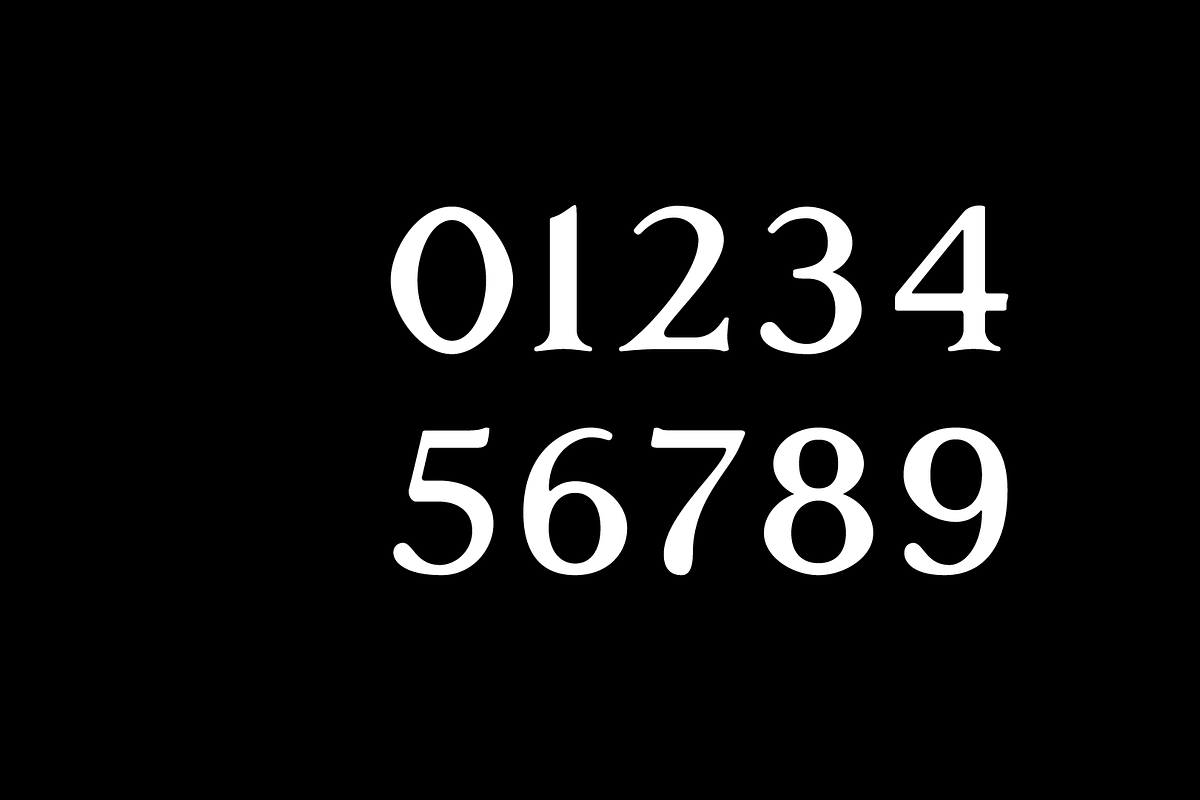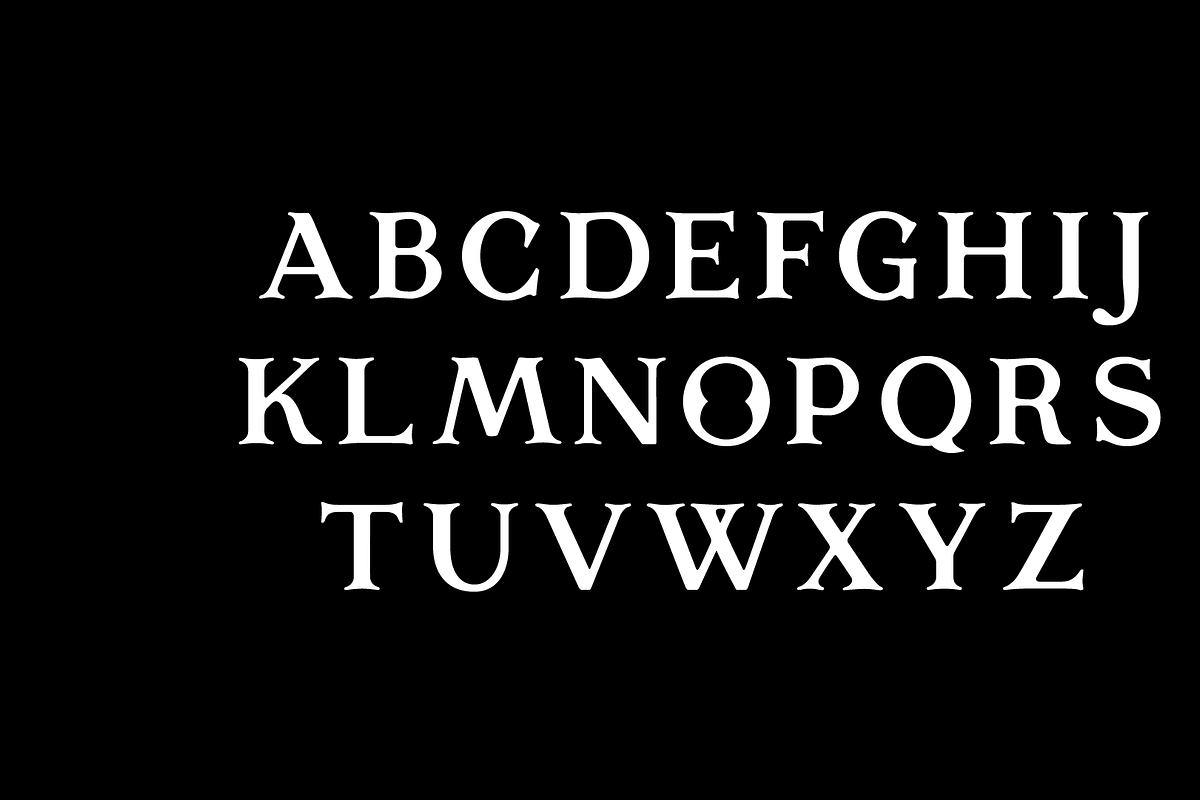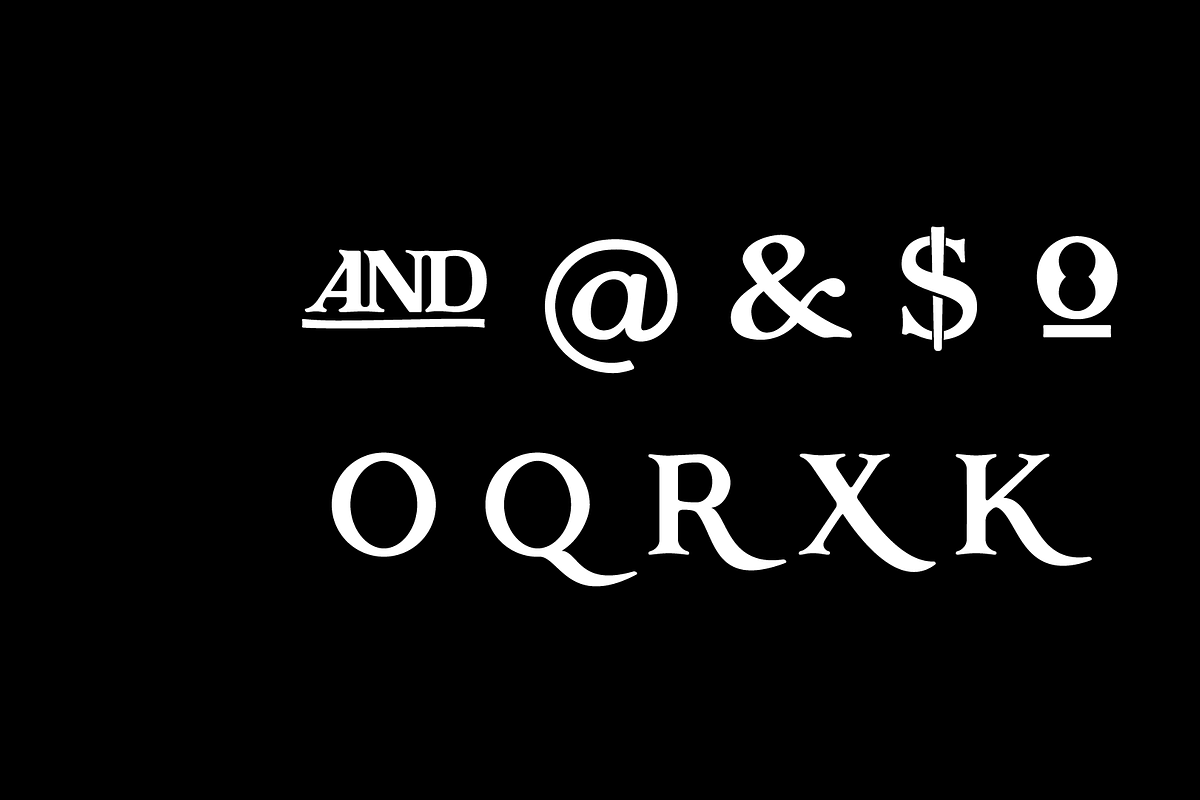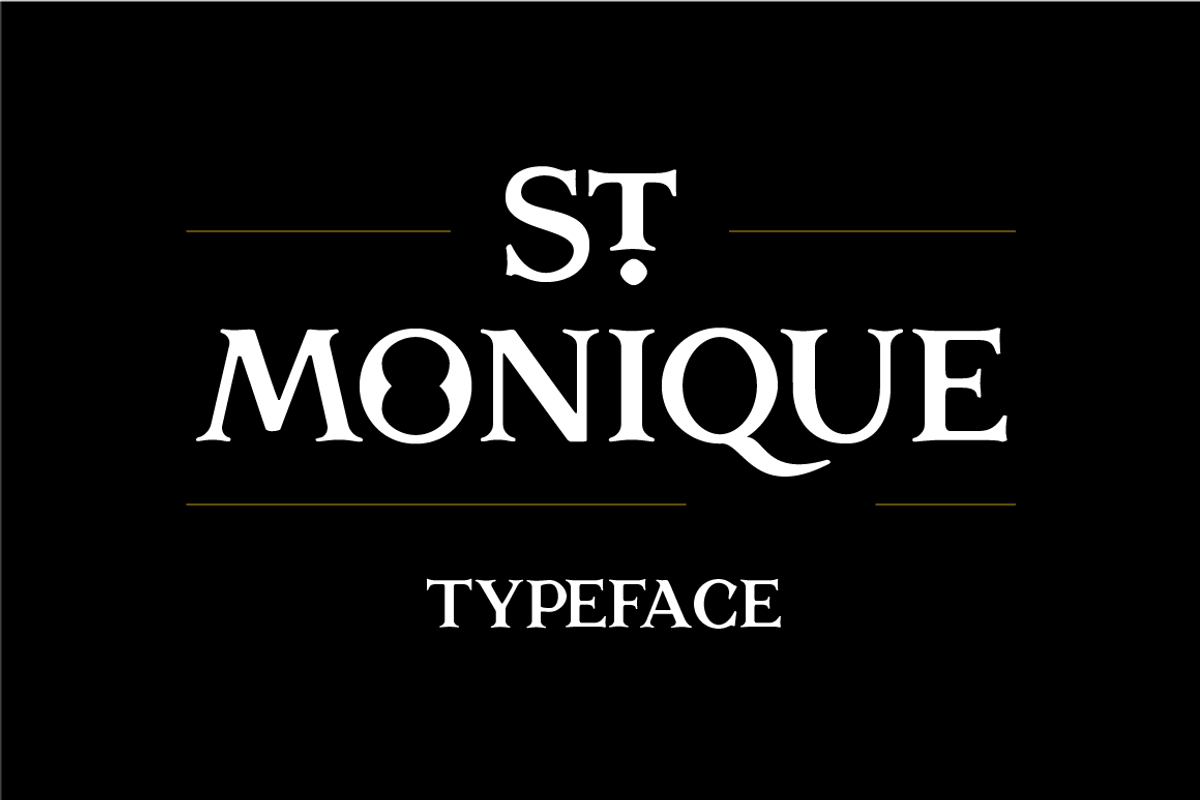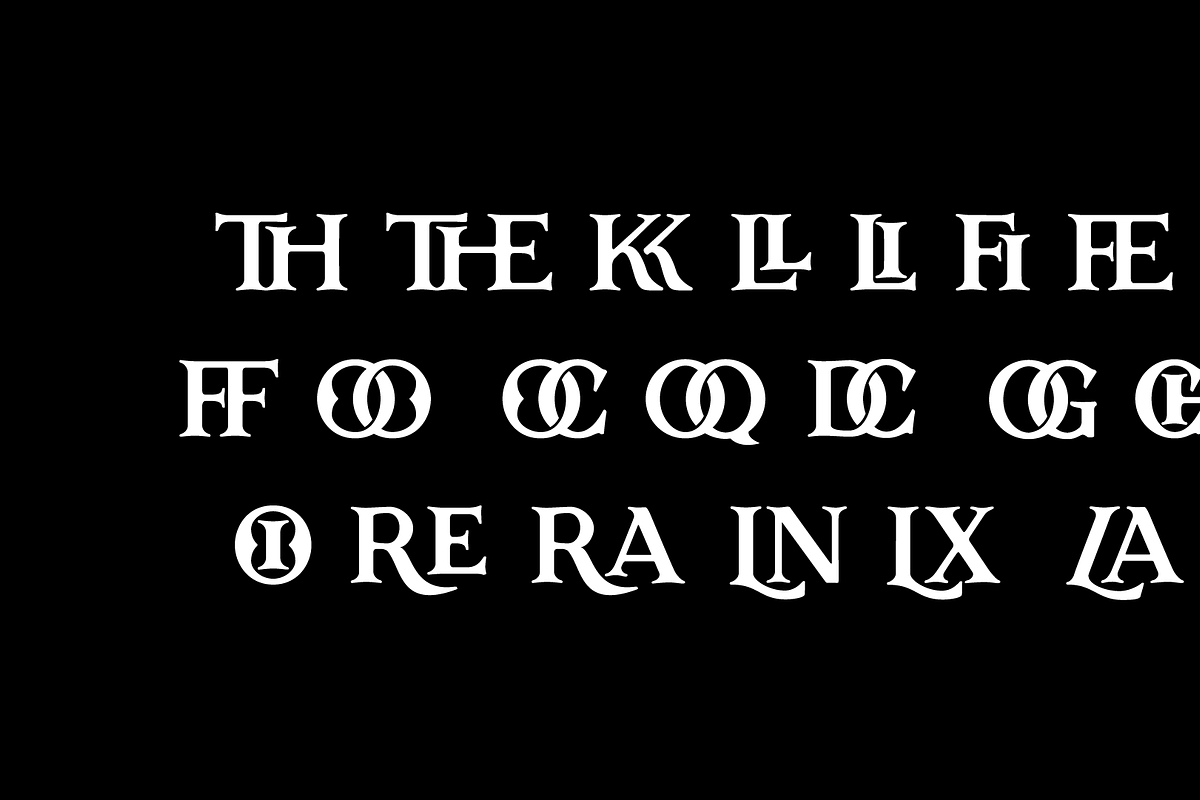
St. Monique Typeface
St. Monique Typeface by abcccccccccccccc is a font selected for branding, posters, packaging, typography.
Why St. Monique Typeface is worth a look
St. Monique Typeface by abcccccccccccccc fits naturally into Branding, posters, packaging, typography.